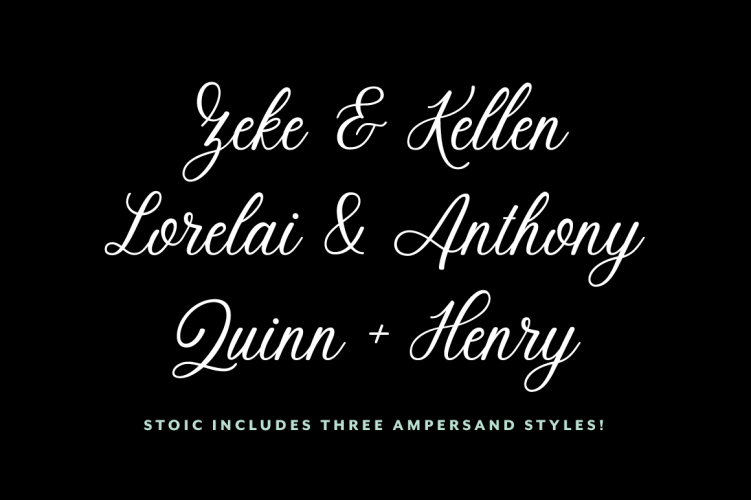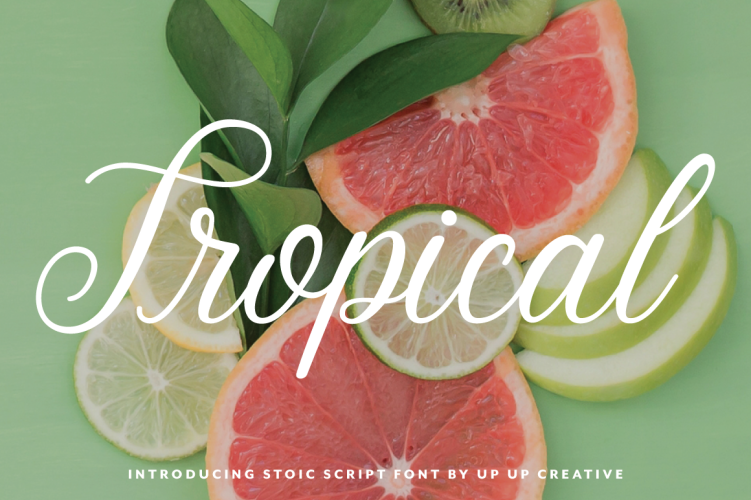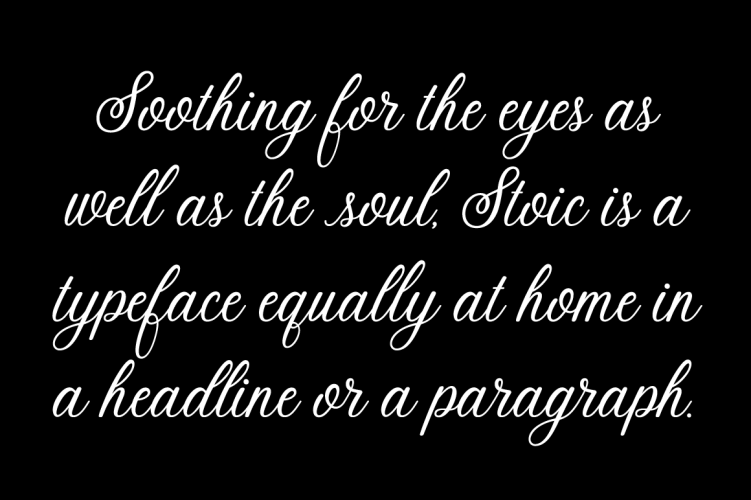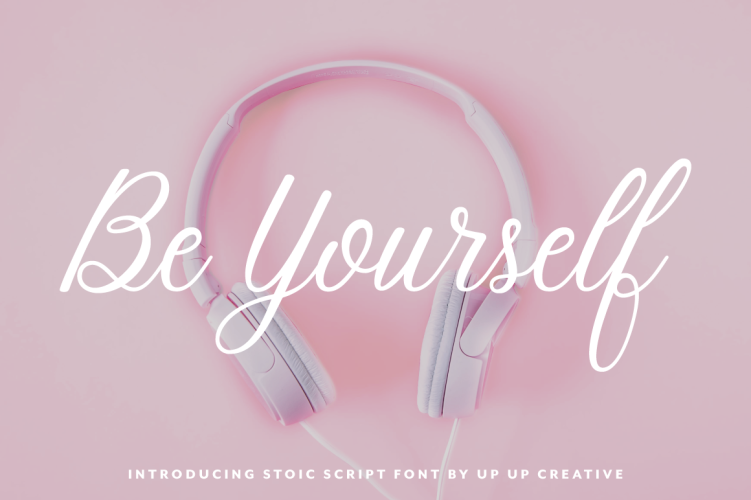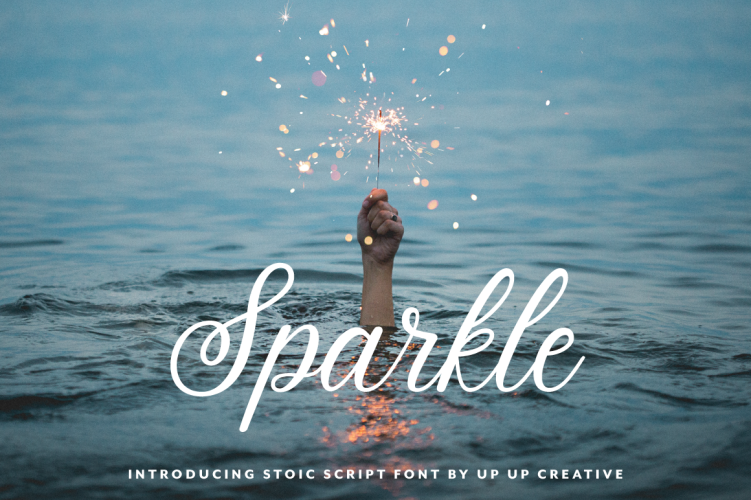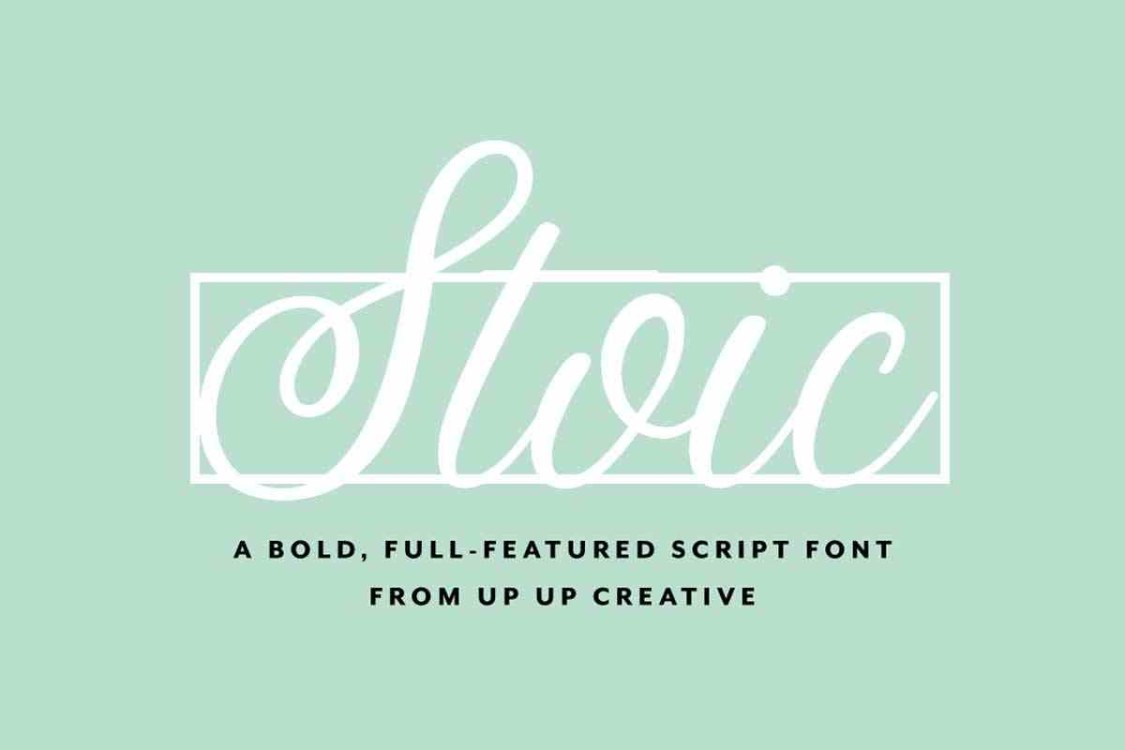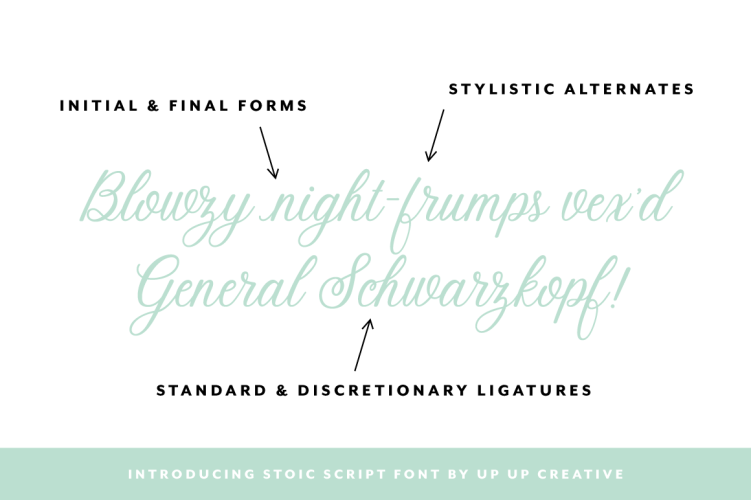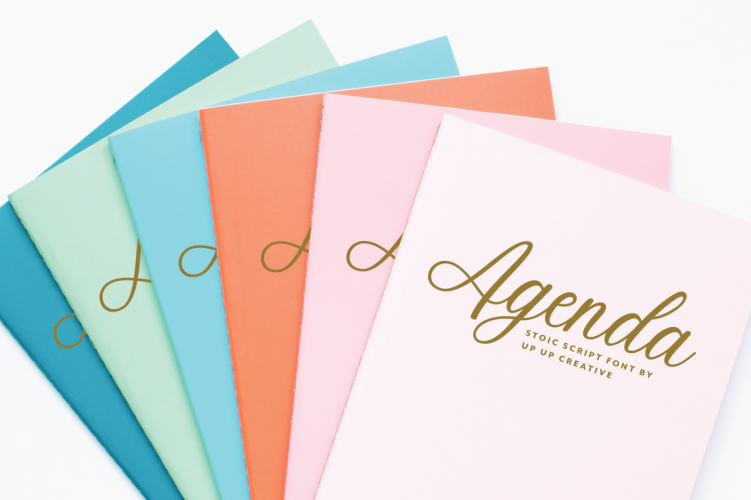
Stoic Font
Introducing Stoic, a bold, full-featured script font with many OpenType features. With its smooth connections and considerable charm, Stoic is perfect for logos, wedding invitations, stationery design, branding projects, photo overlays, editorial features, and more.
Stoic comes with more than 550 glyphs! Specific OpenType features include contextual alternates, stylistic alternates, initial and final forms, multiple alternate glyphs for many letters (accessed through the glyphs panel), multilingual support (including multiple currency symbols), three ampersands, 101 standard and discretionary ligatures, and standard numbers.
Where Stoic Font works best
Stoic Font brings a personal, handwritten warmth to invitations, menus and place cards.
Craft brands — coffee, cosmetics, bakery — use scripts like Stoic Font for signature-style logos and labels.
Pair Stoic Font with a plain sans for quotes, stories and Pinterest pins that feel handmade.
What is Stoic Font good for?
Stoic Font is a Script And Handwritten typeface tagged Bold, Branding, Editorial, Script. It works well for headlines, logos, posters, social media graphics and branding projects that need a distinctive script and handwritten look.